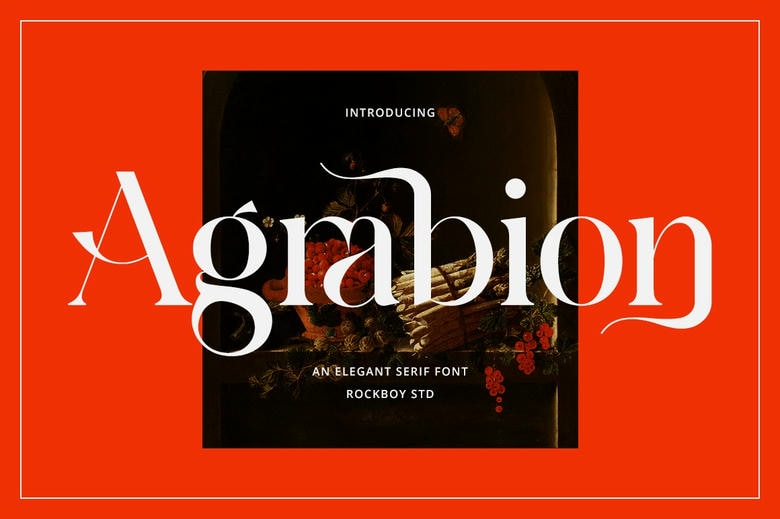
Agrabion Font
Agrabion is a new, clean and genuine serif typeface. Crafted with great skill to turn into an absolute favorite, this font has the ability to help each of your visions reach the top level! PUA encoded = Available in Adobe Illustrator, Adobe Photoshop, Adobe InDesign, even work in Microsoft Word. PUAM defined characters – completely transparent without the need to use additional design software.
Agrabion Serif Font